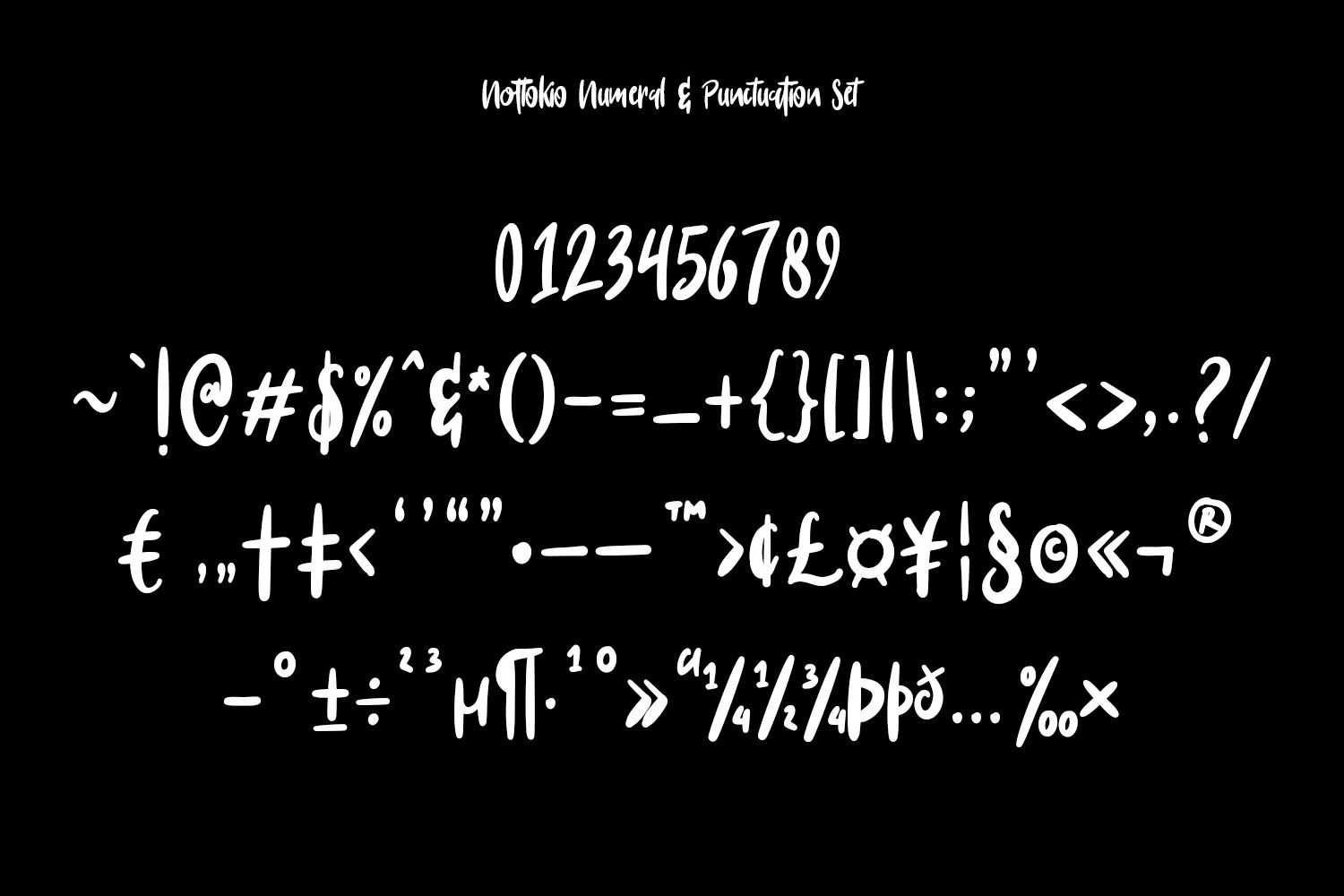
Give your designs an authentic brush handcrafted feel. "Nottokio Quoteable Logo Font" is perfectly suited to signature, stationery, logo, typography quotes, magazine or book cover, website header, flyer, clothing, branding, packaging design and more.